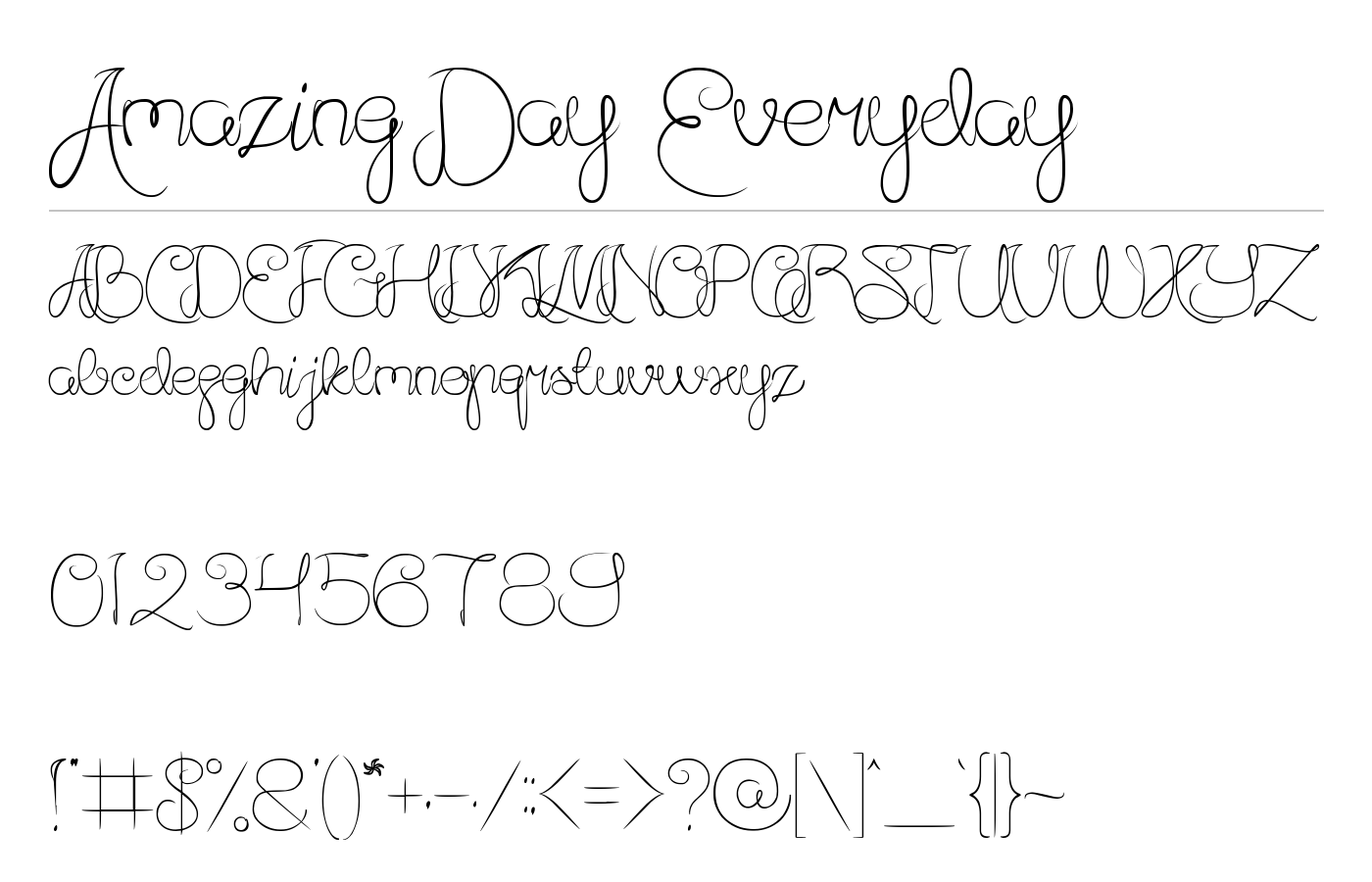
Amazing Day Everyday is a delicate, light-weight script font characterized by its thin, flowing lines and elegant swirls that give it a whimsical and artistic feel. With a tall x-height and intricate letterforms, it exudes a playful yet sophisticated personality, ideal for creative branding, invitations, and decorative headlines where a sense of grace and uniqueness is desired. This font works best in designs that benefit from a refined, hand-drawn aesthetic, adding charm and elegance without overwhelming the layout.
Amazing Day Everyday Font
About Amazing Day Everyday Font